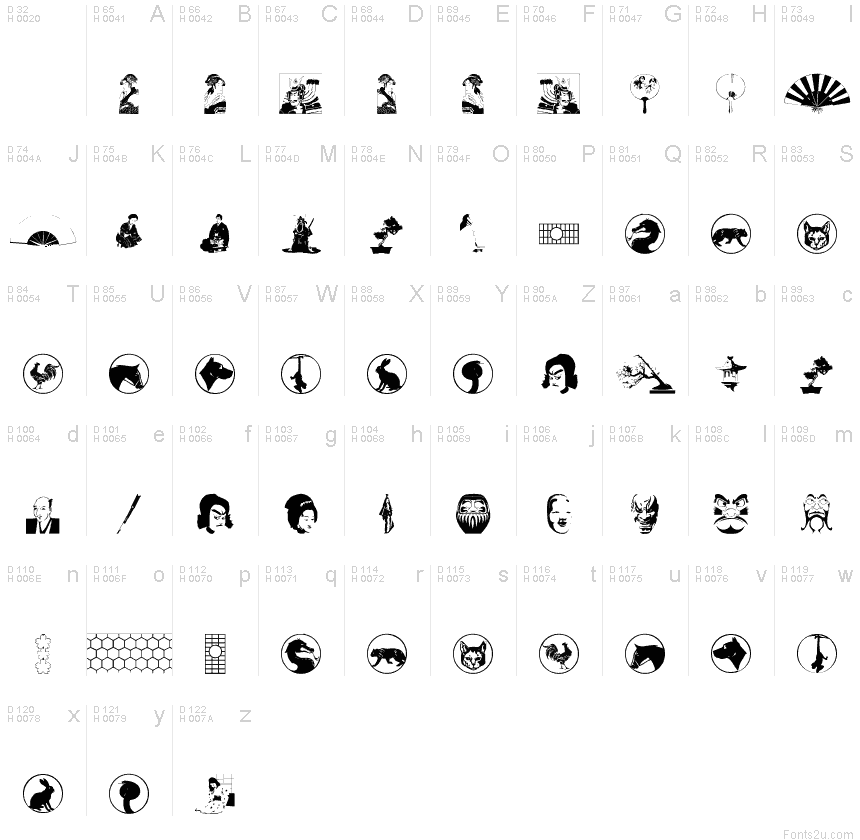
Asian Dings
Asian Dings font by OMEGA Font Labs is a free Asian dingbats font that drops in like a set of inky stamps-bold, black silhouettes with a slightly grainy, woodcut bite. The symbols feel collected from folklore and street signage: mask-like faces, serene portraits, and punchy icons that read fast even at a glance. It’s compact, graphic, and full of instant mood.
Using Asian Dings, you can add quick character to festival flyers, zines, album covers, ramen-shop menus, packaging seals, chapter breaks, greeting cards, and sticker sheets. This free font shines when you scale it up and let the shapes breathe; try pairing it with a clean neo-grotesk sans for the text so the pictograms stay the star.